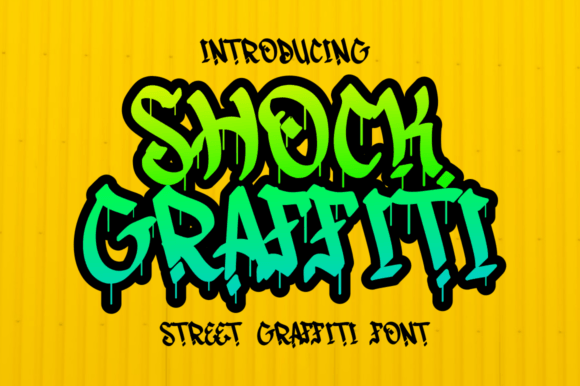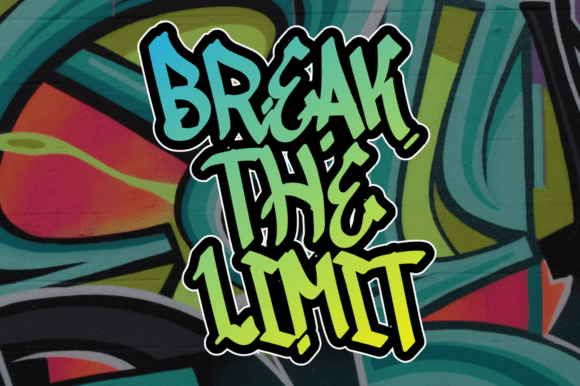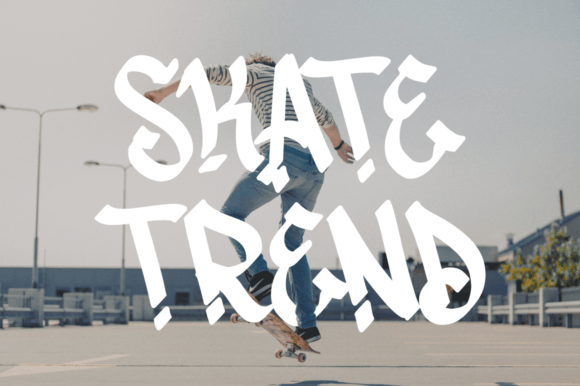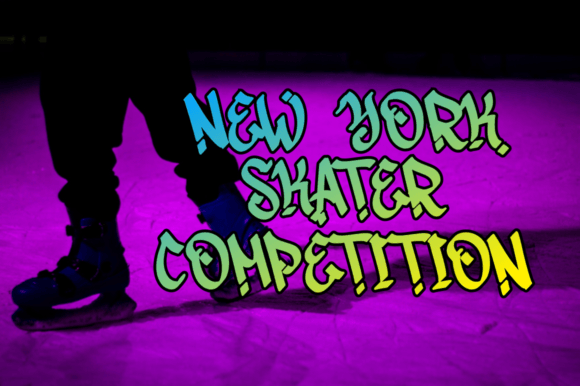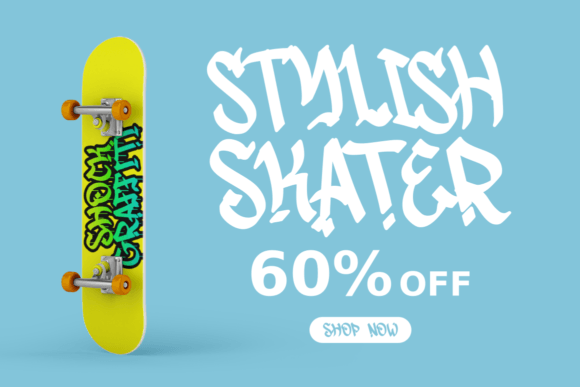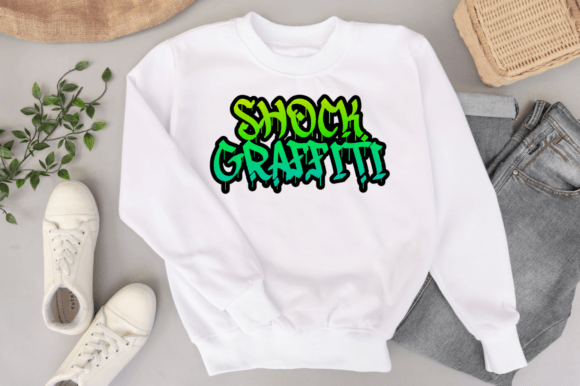
Shock Graffiti Font
Shock Graffiti is a beautiful display font. If you want to add an urban touch to your designs, use the Shock Graffiti font! This font offers a distinctive writing style and is very suitable for urban and street-themed designs such as posters, merchandise, or even in T-shirts and hoodies. With Shock Graffiti, you can bring a strong and bold impression to every design you create.